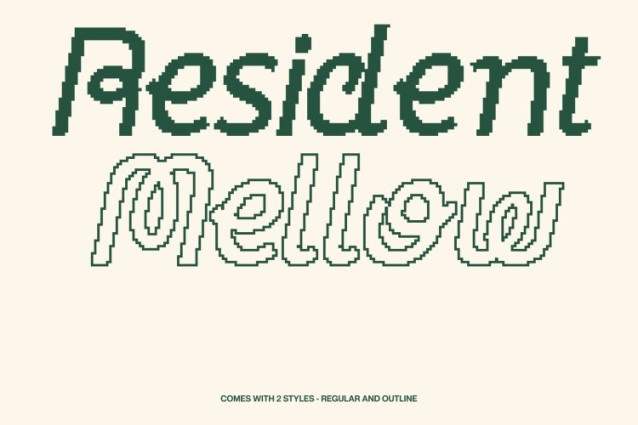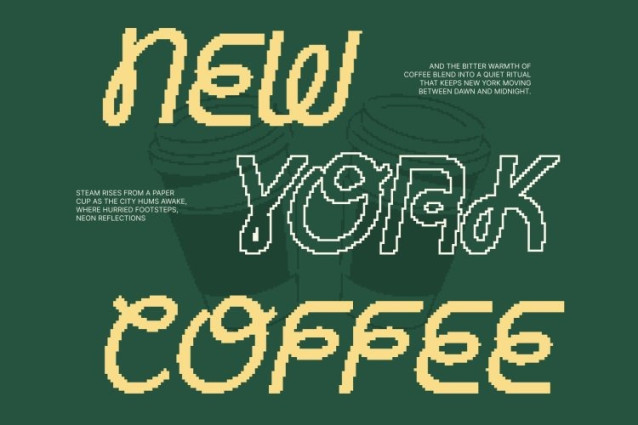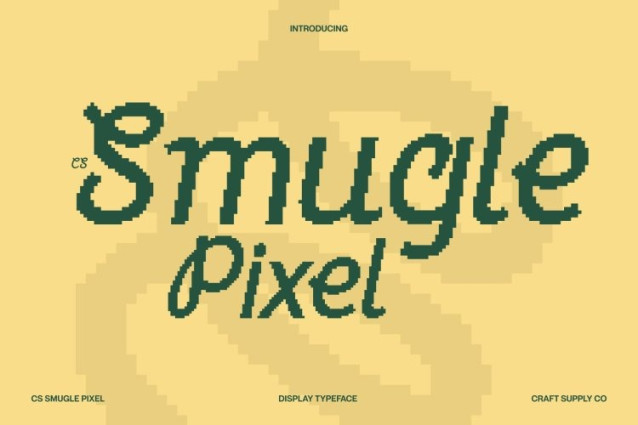
CS Smugle Pixel Font
CS Smugle Pixel Font This is a modern experimental sans serif font that stands out through its unconventional shapes and subtle pixel-inspired detailing. Each letter is uniquely constructed, blending geometric clarity with digital irregularity to create typography that feels fresh, lively, and full of personality. The pixel accents add texture and rhythm, making every word visually engaging.
Innovative Letterforms with Digital Edge
Designed for creative exploration, this font combines clean sans serif foundations with playful distortions and modular pixel structure. The unexpected angles and expressive proportions inject energy into layouts, while the pixel nuances reinforce its contemporary, tech-influenced character. It’s a perfect balance between experimentation and structure.
Perfect for Bold and Playful Branding
This font thrives in posters, logos, album artwork, editorial headlines, and creative branding projects. Its quirky, cheerful style captures attention instantly, transforming simple text into a statement piece filled with originality and impact.
Versatile, Modern, and Expressive
Despite its experimental spirit, this font remains adaptable across both print and digital platforms. Whether used for social media graphics, packaging, or visual campaigns, this font delivers bold imagination, modern clarity, and a distinctive pixel-driven personality that makes every design unforgettable.